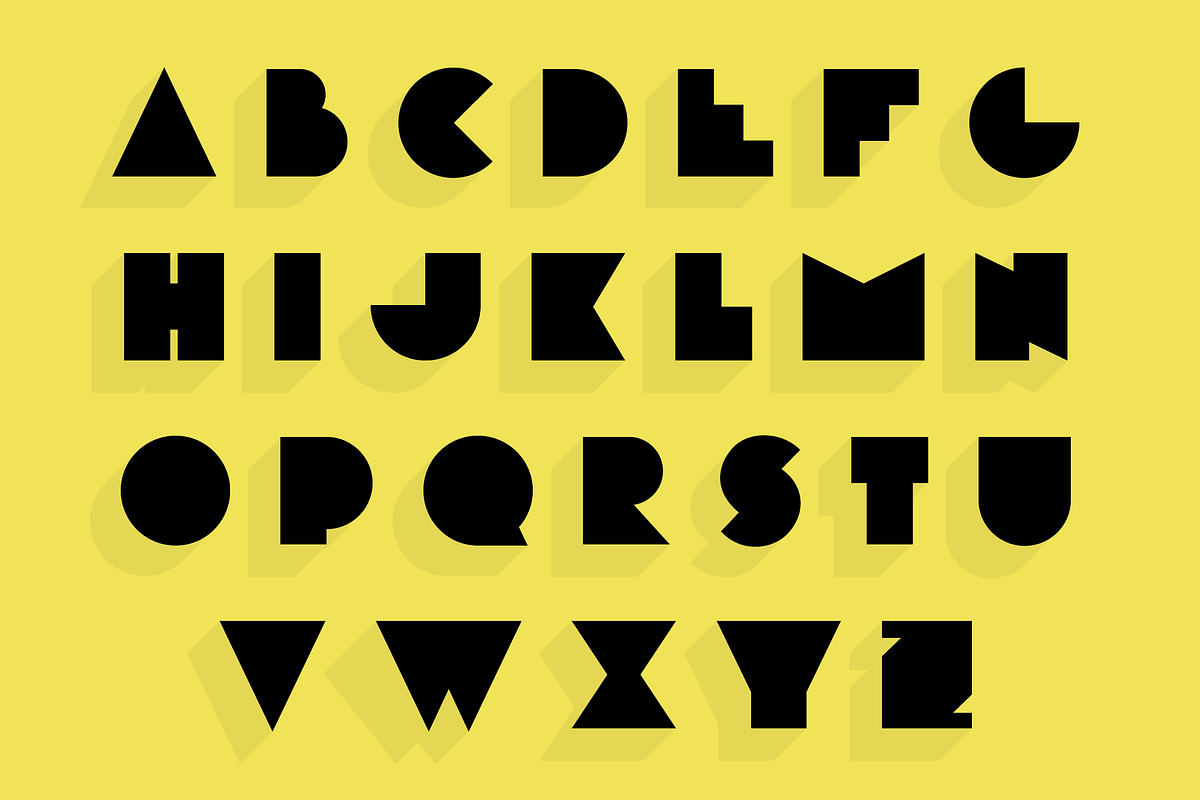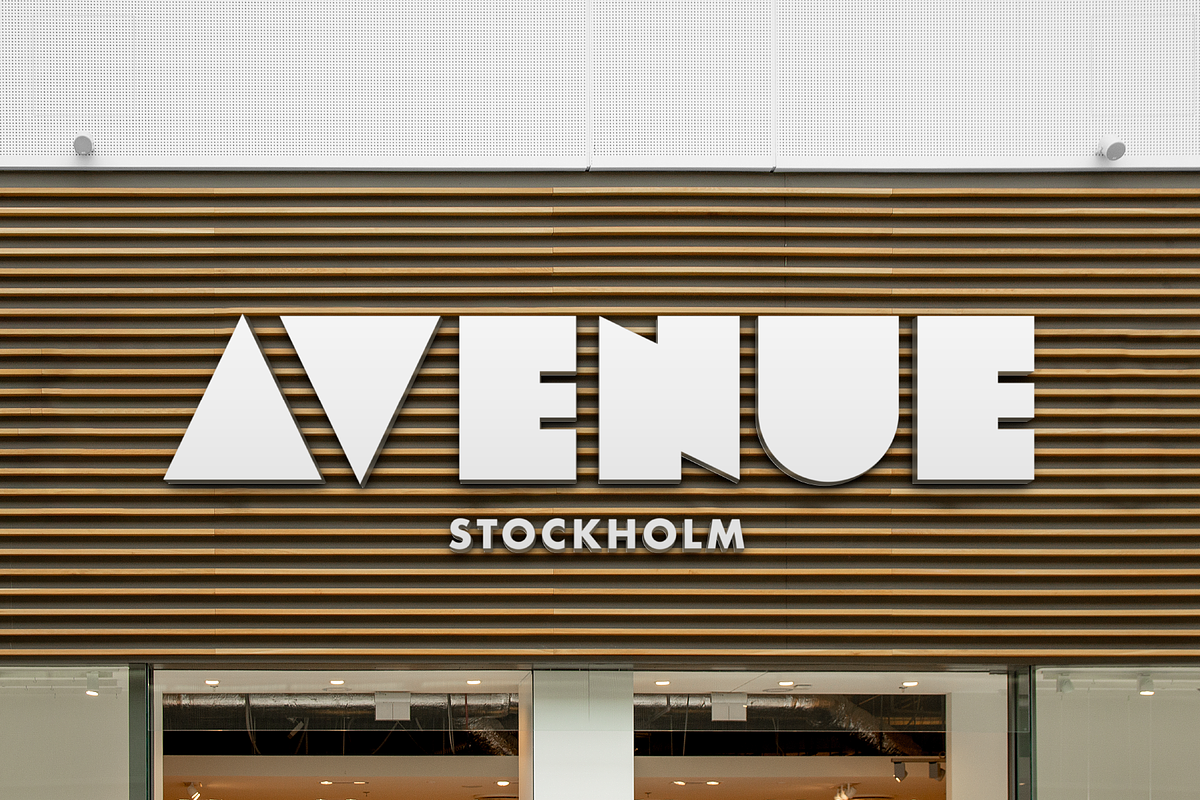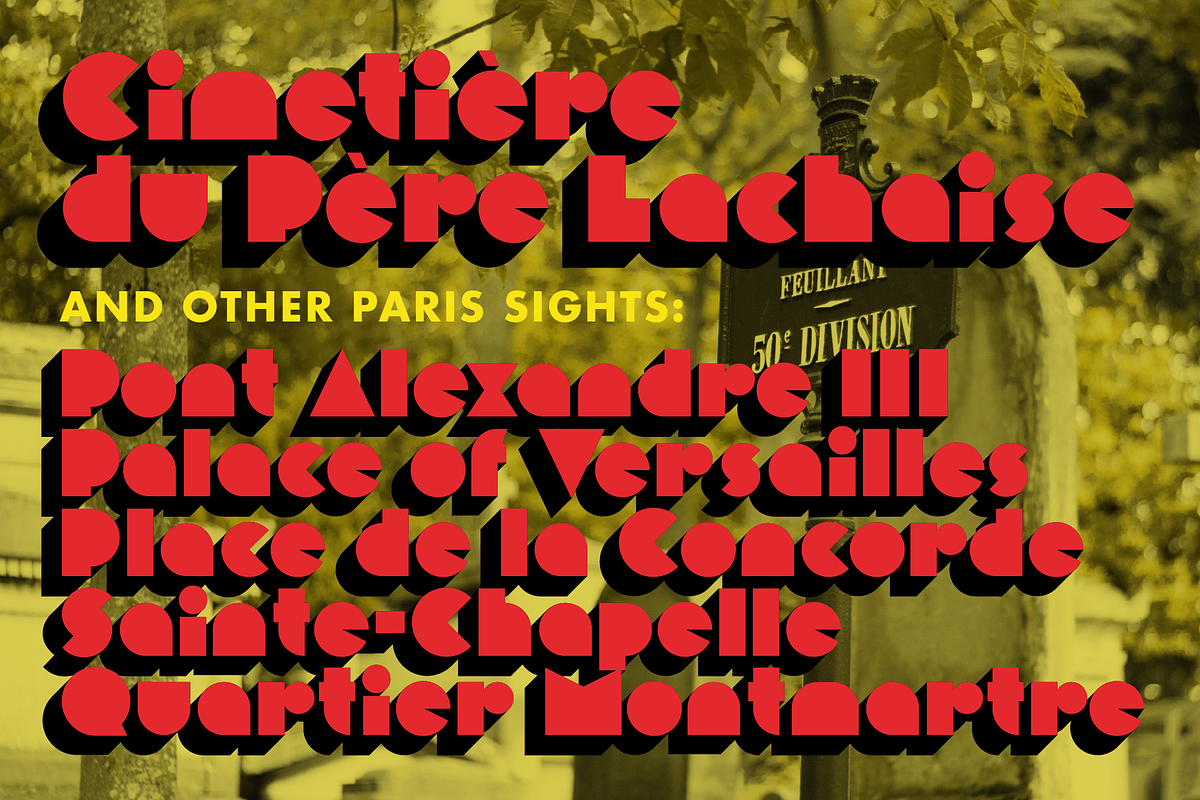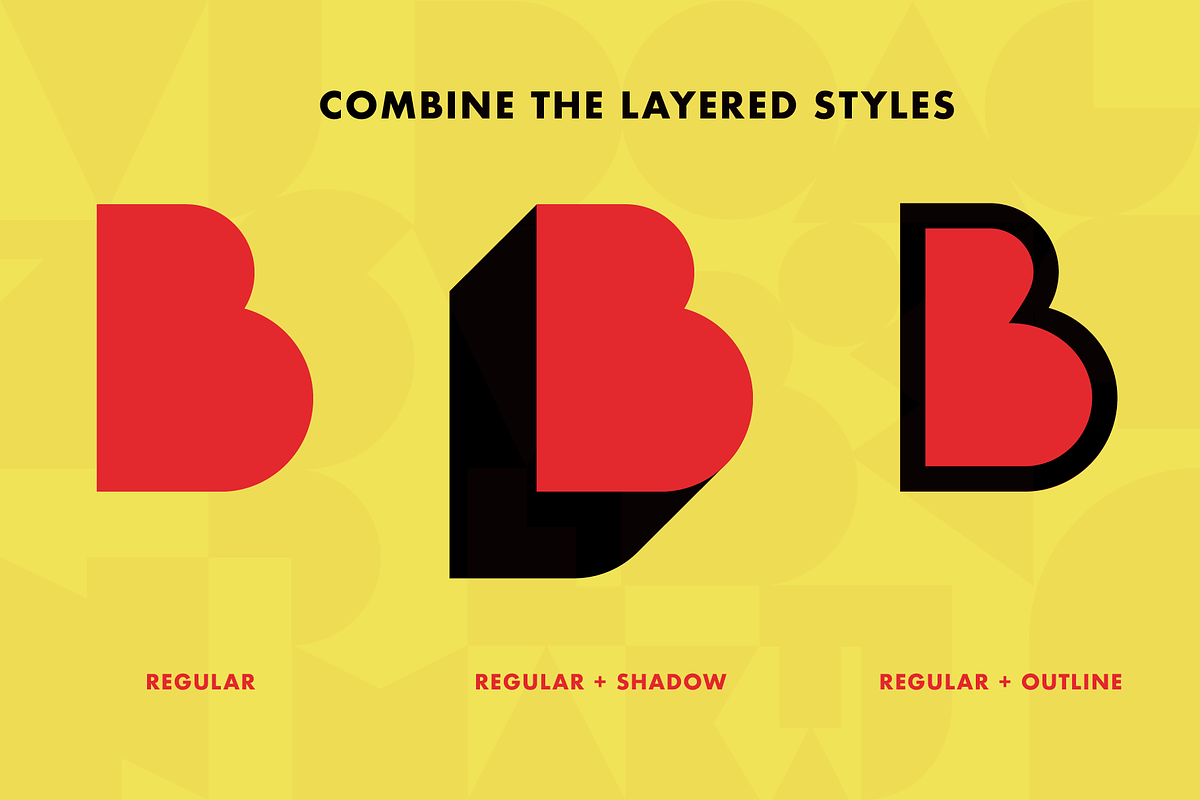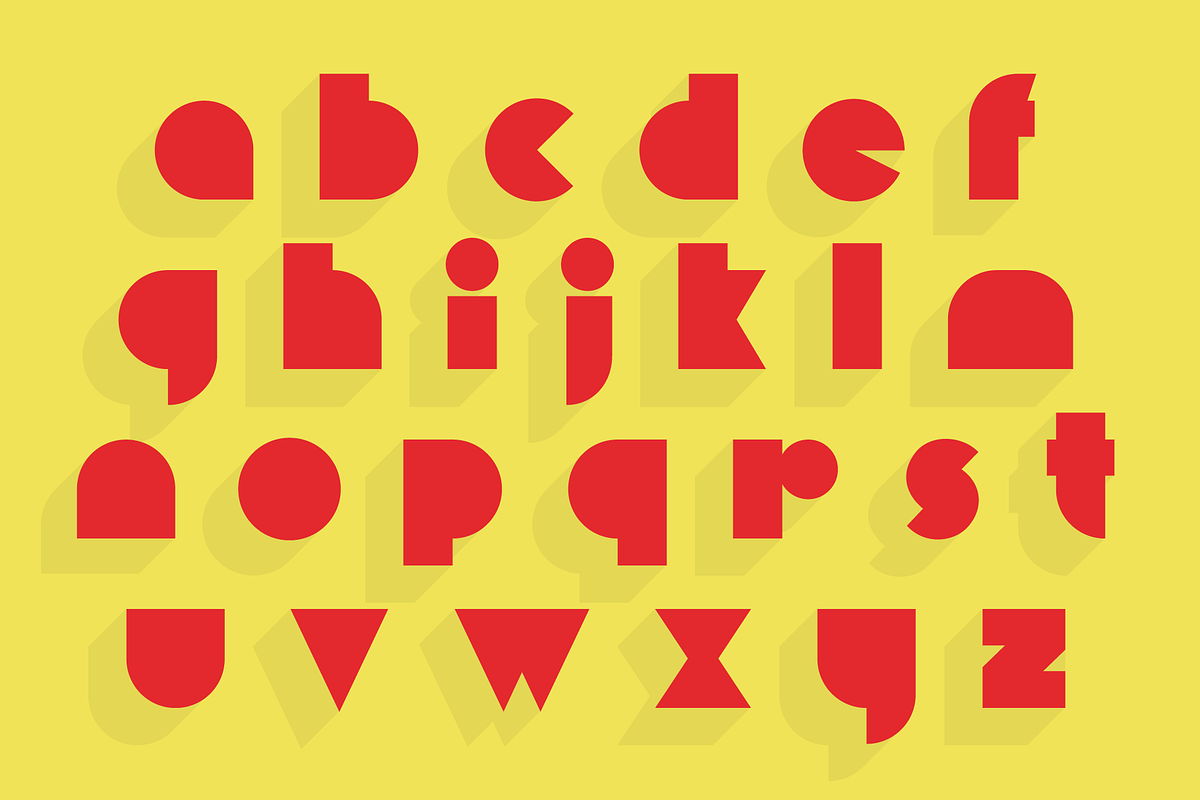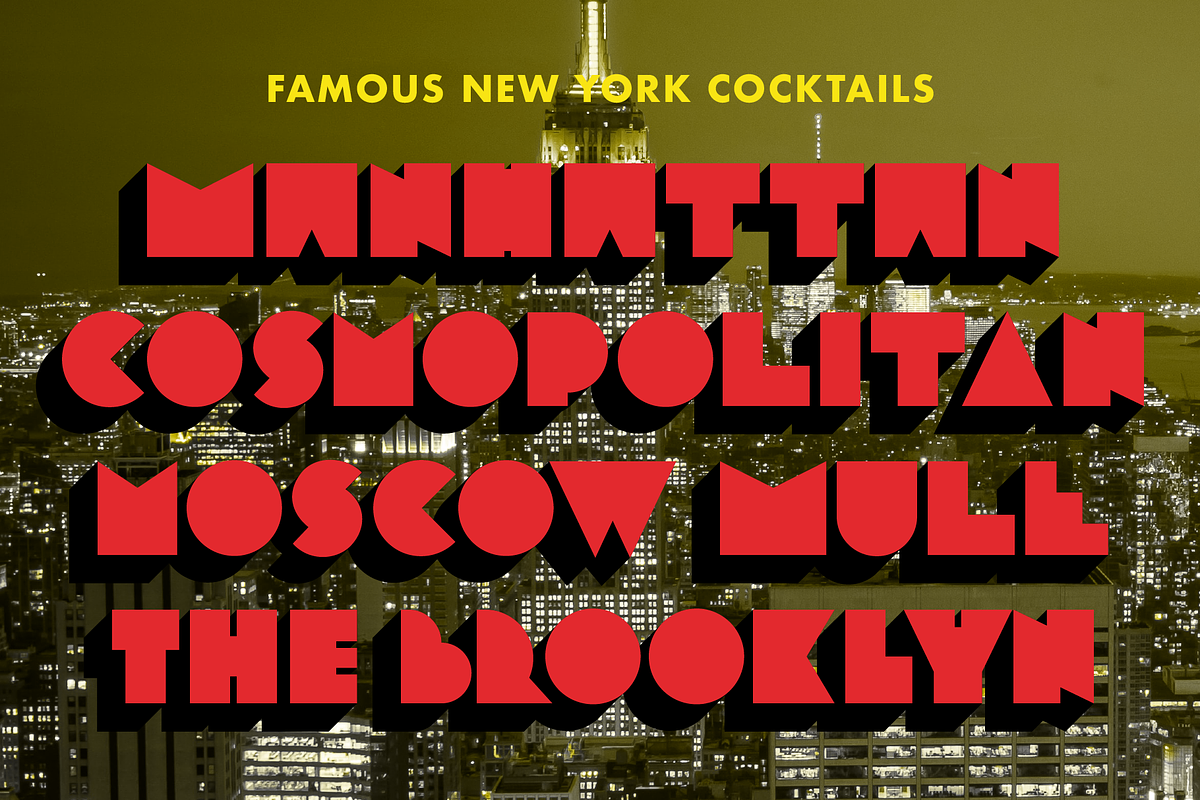
Morro - Geometric figures font
Morro is based on simple geometric shapes – circles, triangles and rectangles. Imagine cutting circles, triangels and rectangles from paper and arranging them into letters where the outer edges form a filled figure.
Morro Regular works like a stencil and are accompanied by a block shadow style (Morro Shadow) and an outline (Morro Outline). The Morro family of fonts are layered and can be superimposed on each other to create several types of text effects.